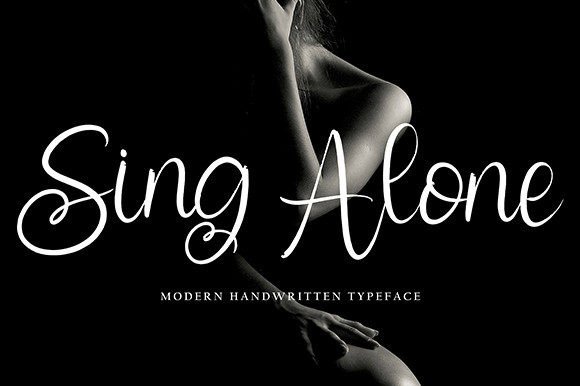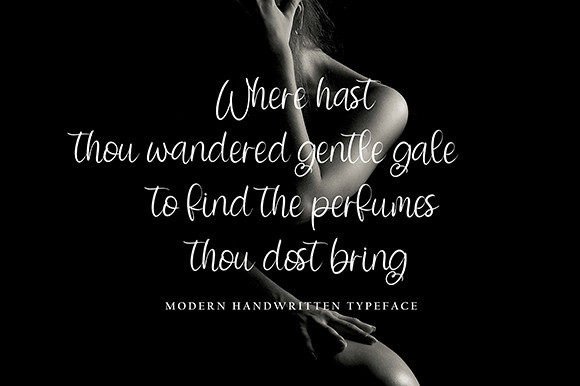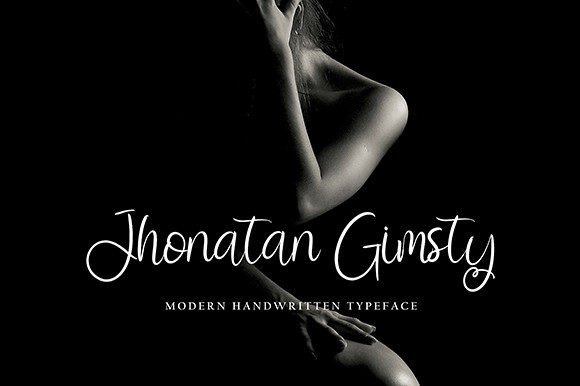
About Sing Alone
Sing Alone is a stylish and elegant handwritten font. It looks stunning on wedding invitations, thank you cards, quotes, greeting cards, logos, business cards, and any other design that needs a handwritten touch.